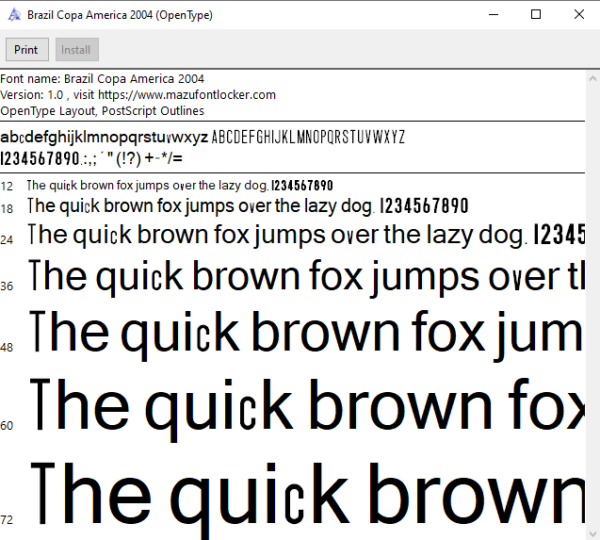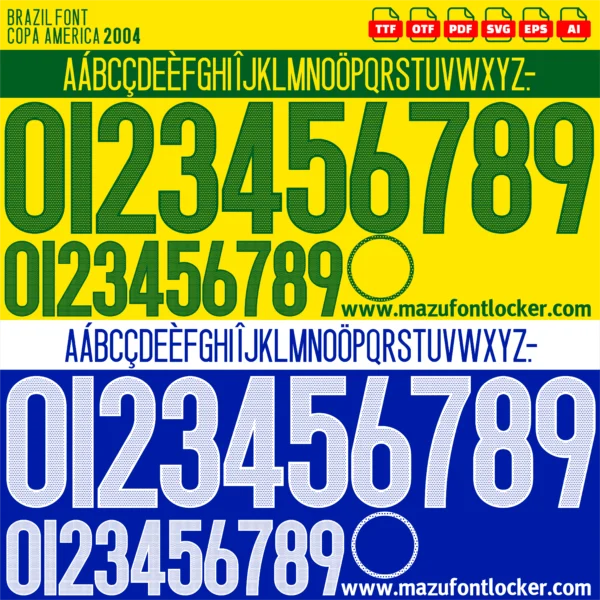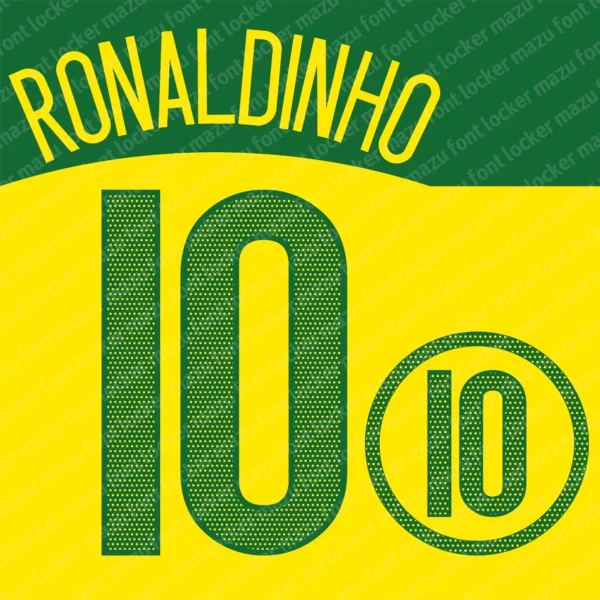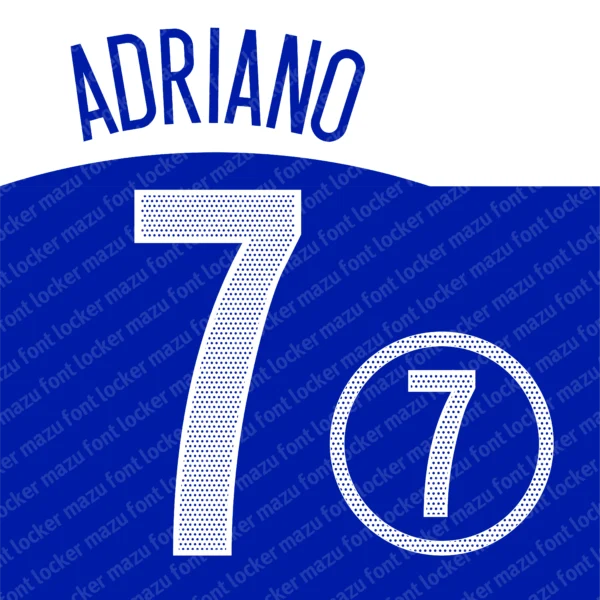
Brazil Copa America 2004 Font Vector – Stunning Seleção Canarinho Legacy Masterpiece
This font captures the commanding, precision-engineered, lightning-strike, and dynamically crafted lettering that perfectly embodies Brazil’s iconic football identity, proud Brazilian heritage, samba-inspired flair, winning mentality, and electrifying football power — delivering unmatched authenticity, premium quality, explosive energy, and legendary Copa America dominance for professional jersey mockups, dynamic football graphics, premium sports branding, passionate fan creations, and high-end design projects.
Brazil Copa America 2004 Font Vector – Legendary Canarinho Football Masterpiece
The Brazil Copa America 2004 Font Vector is a premium typeface that accurately recreates the iconic match lettering inspired by the Brazilian national football team during the 2004 Copa América campaign. This high-quality vector font kit captures the bold, clean, and instantly recognizable typography that perfectly complements Brazil’s legendary yellow, green, and blue football identity.
Designed for professional designers, football enthusiasts, collectors, and passionate Brazil supporters, the Brazil Copa America 2004 Font Vector delivers exceptional authenticity for creating realistic jersey mockups, football merchandise, social media graphics, match posters, retro football artwork, and custom fan designs. Every character has been carefully recreated to reflect the powerful and distinctive visual style associated with one of the most successful national teams in football history.
Why Choose Brazil Copa America 2004 Font Vector
This font stands out thanks to its precise vector construction and authentic Brazilian football styling. Every letter and numeral has been meticulously recreated to capture the classic shirt lettering aesthetic inspired by Brazil’s 2004 Copa América campaign. Whether you’re producing professional football kit templates, retro jersey designs, or creating eye-catching football content, the Brazil Copa America 2004 Font Vector delivers a genuine match-ready appearance with a nostalgic South American football feel.
The lettering featured in the Brazil Copa America 2004 Font Vector combines clean geometric lines with bold proportions and a strong athletic appearance. The result is a premium and highly readable typeface that reflects Brazil’s iconic Canarinho identity, attacking football tradition, and rich history on the international stage.
The numerals feature balanced curves, strong edges, and consistent spacing for maximum readability on football jerseys and digital media. Built entirely as scalable vectors, every number remains crisp and sharp for jersey customization, retro football posters, banners, print projects, merchandise designs, and high-resolution graphics.
• Complete uppercase A–Z alphabet and numbers 0–9 in authentic Brazil Copa America 2004 inspired style
• Recreate nostalgic early-2000s Brazilian football jersey designs and classic kit concepts
Brazil Copa America 2004 Season
The 2004 Copa América campaign was a memorable chapter in the history of the Brazilian national football team. Brazil competed in the prestigious South American tournament with a squad featuring a blend of experienced stars and exciting young talents. The tournament showcased Brazil’s famous footballing identity and produced a dramatic final that would become part of the team’s rich international history.
Brazil ultimately lifted the Copa América 2004 trophy after defeating Argentina in the final on penalties following a thrilling 2–2 draw. The victory added another major international title to Brazil’s decorated football history and further established the team’s reputation as one of the dominant forces in South American football.
Wearing their iconic yellow and green colors, Brazil created unforgettable moments throughout the tournament and secured another historic Copa América triumph for their passionate supporters around the world.
The Brazil Copa America 2004 Font Vector is an independently designed typeface package inspired by the football shirt lettering associated with Brazil’s 2004 Copa América campaign. It has been carefully recreated for football enthusiasts, graphic designers, collectors, jersey creators, and fans producing custom football concepts, retro football artwork, and fan-made projects.